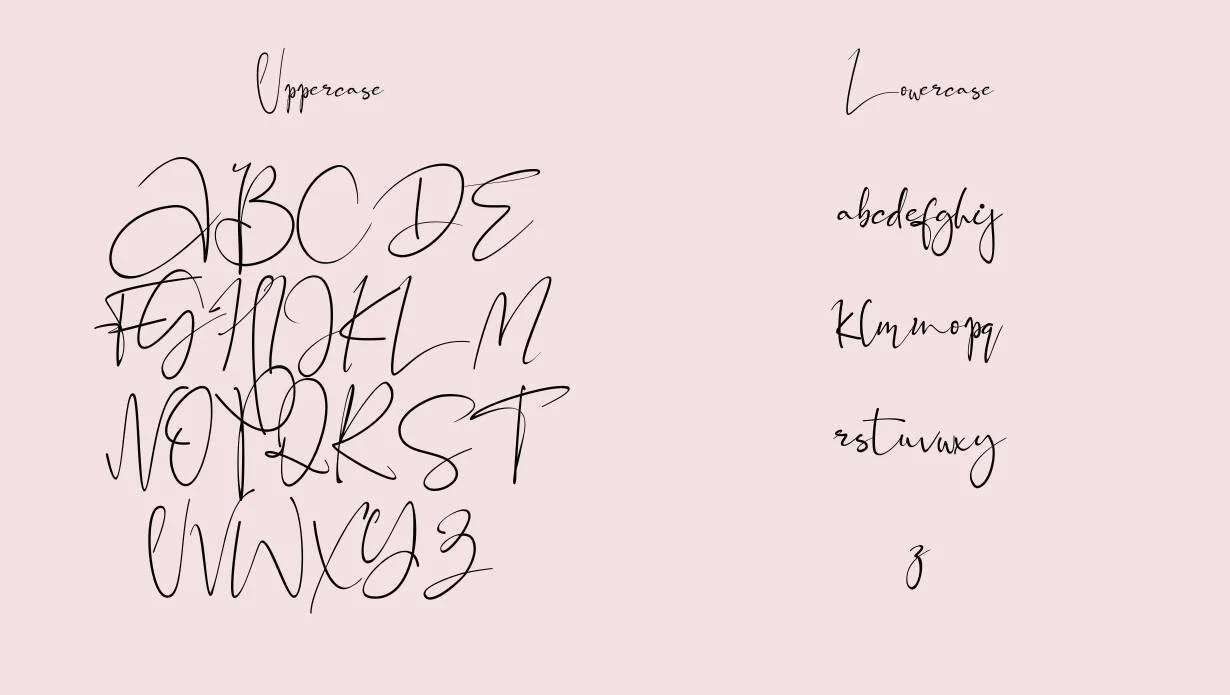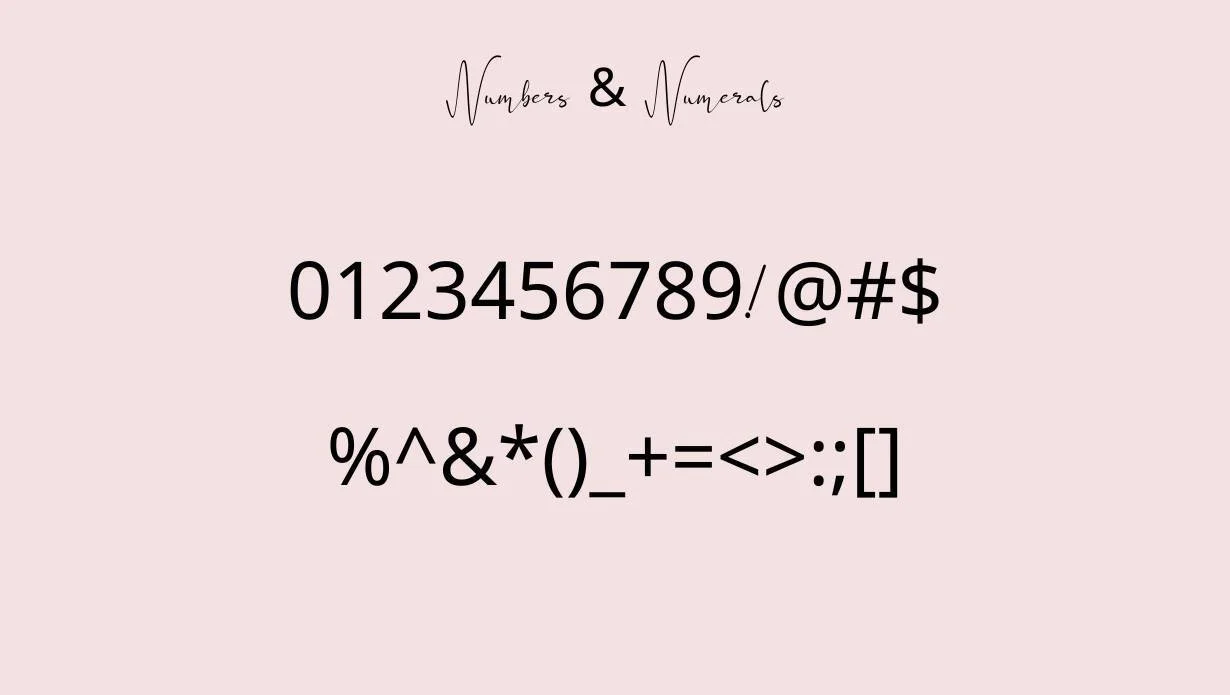
Blackpink Signature Font is a new handwritten typeface with cool signature style. This typeface is very much inspired by the famous girl’s music band. The characters of this typeface have thin and straight lines with creative edges that you can use for various designed projects.
Blackpink Signature Font Info
| Name | Blackpink Signature Font |
| Designer | Letterara |
| Style | Handwritten |
- Blackpink Signature Regular
- Blackpink Signature Italic
- Blackpink Signature Bold
- Blackpink Signature Bold Italic
View of Blackpink Signature Font